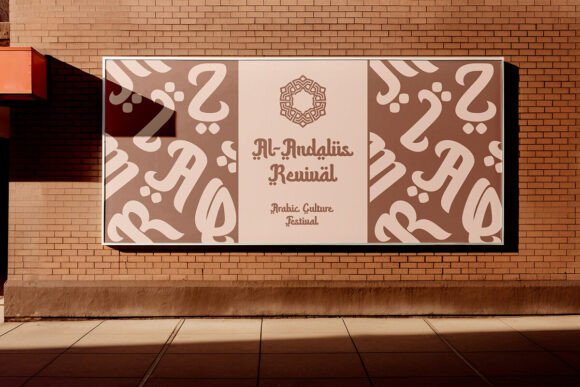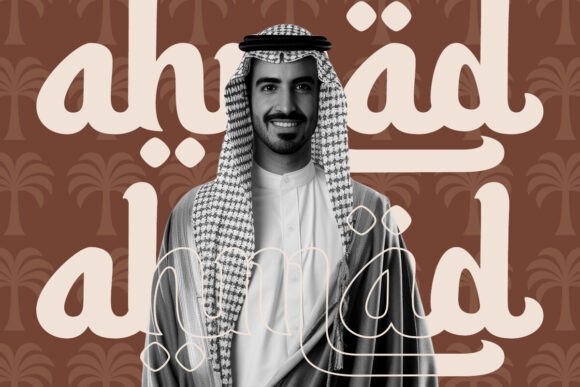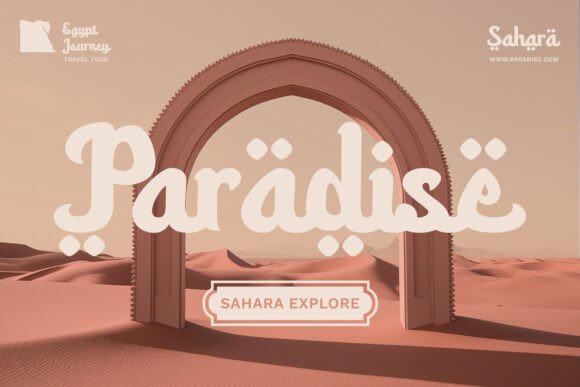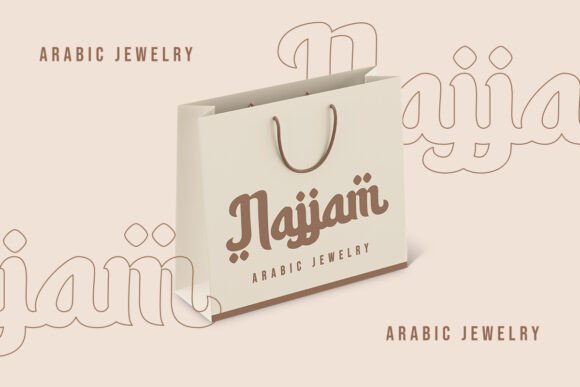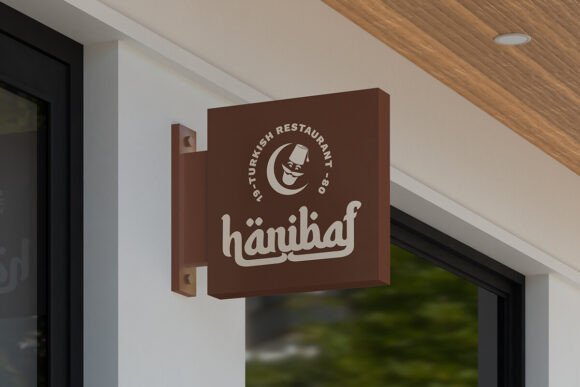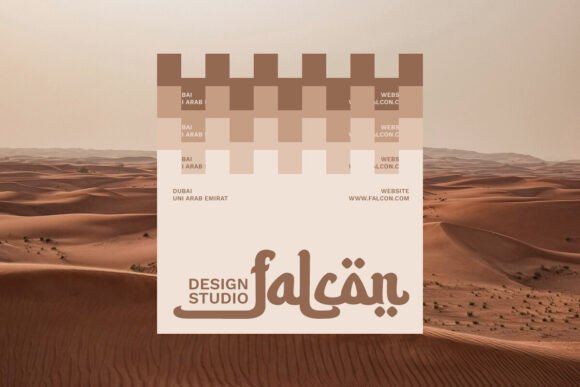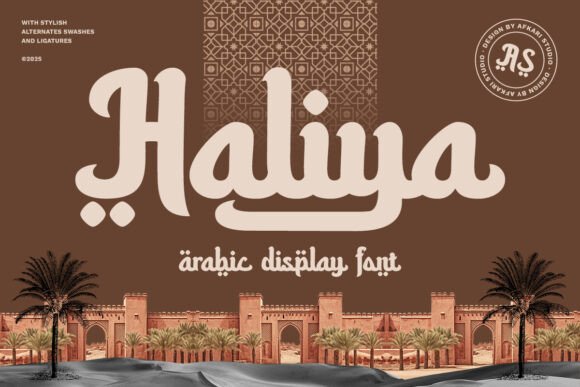
Introducing Haliya Font: The Elegance of Arabic Calligraphy in Modern Design
Are you looking for a font that embodies the beauty and sophistication of traditional Arabic calligraphy, yet resonates with a modern design sensibility? Look no further than Haliya Font. This elegant Arabic-style typeface is specifically designed to bring the rich heritage of Arabic calligraphy into contemporary design, making it perfect for a wide range of creative projects.
The Inspiration Behind Haliya
Haliya Font draws its inspiration from the rich cultural and aesthetic traditions of the Middle East. The font’s creator aimed to capture the essence of Arabic calligraphy, with its fluid curves, graceful strokes, and intricate details, and infuse it with a contemporary touch. The result is a typeface that is not only authentic but also refreshingly modern.
Key Features of Haliya Font
So, what makes Haliya Font stand out? Here are some of its key features:
• Fluid Curves and Graceful Strokes: Haliya’s design is characterized by smooth, flowing curves and elegant strokes that reflect the beauty of Arabic calligraphy.
• Intricate Details: The font’s intricate details add a level of sophistication and luxury, making it ideal for high-end branding and editorial design.
• Contemporary Touch: While rooted in traditional Arabic calligraphy, Haliya has a modern twist that makes it versatile and adaptable to various design contexts.
Haliya Font is incredibly versatile and can be used in a wide range of design projects, including:
• Branding and Logo Design: Add a touch of elegance and sophistication to your brand identity with Haliya’s luxurious and refined aesthetic.
• Editorial Design: Use Haliya to create stunning editorial content, such as magazines, newspapers, and blogs, that require a high level of typographic sophistication.
• Packaging Design: Elevate your packaging design with Haliya’s elegant and refined aesthetic, perfect for luxury products and halal branding.
• Islamic-Themed Projects: Haliya is an excellent choice for Islamic-themed projects, such as Ramadan campaigns, Islamic art, and cultural designs.
Why Choose Haliya Font?
With so many fonts available, why should you choose Haliya? Here are a few compelling reasons:
• Unique and Authentic: Haliya offers a unique blend of traditional Arabic calligraphy and modern design sensibilities, making it a standout choice for designers.
• Highly Versatile: Haliya’s adaptability makes it suitable for a wide range of design projects, from luxury branding to editorial design.
• Elegant and Sophisticated: Haliya’s refined aesthetic adds a level of sophistication and elegance to any design project, making it perfect for high-end clients.
In conclusion, Haliya Font is an exceptional Arabic-style typeface that brings the beauty and elegance of traditional Arabic calligraphy into modern design. With its fluid curves, graceful strokes, and intricate details, Haliya is perfect for designers and crafters looking to add a touch of sophistication and luxury to their work. Whether you’re working on branding, editorial design, packaging, or Islamic-themed projects, Haliya is an excellent choice. Elevate your designs with Haliya – where Arabic heritage meets contemporary creativity! 🌙